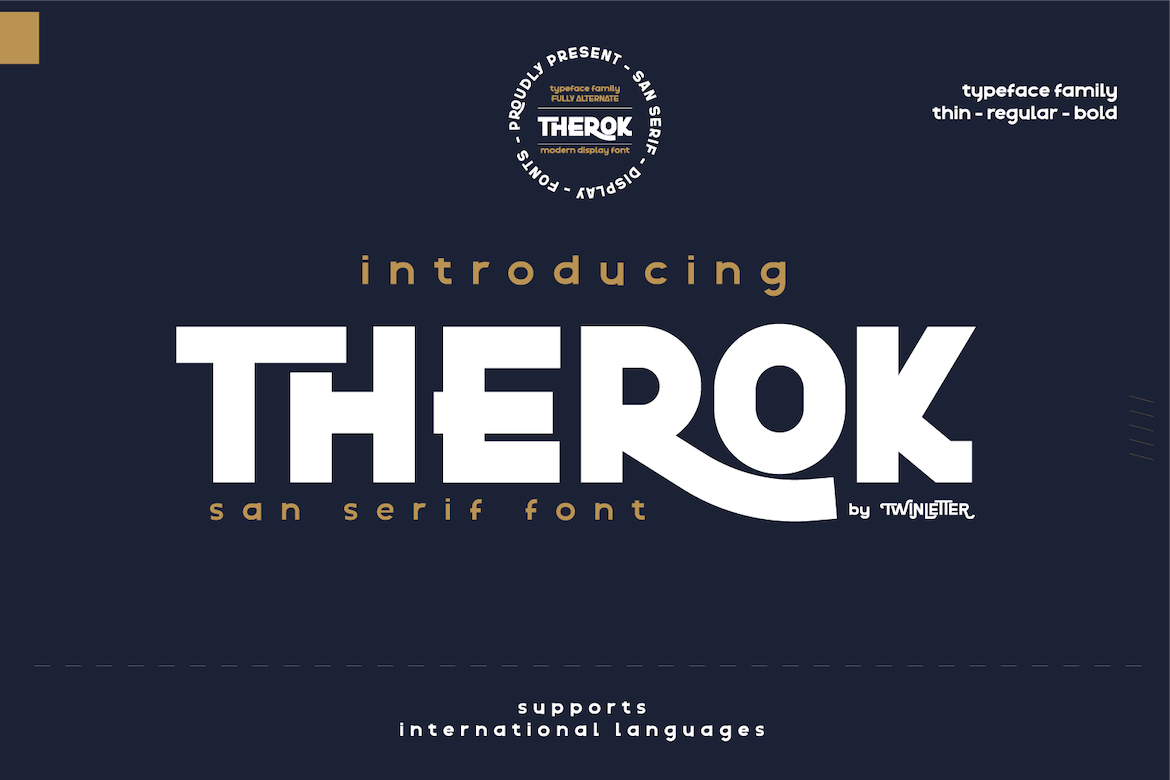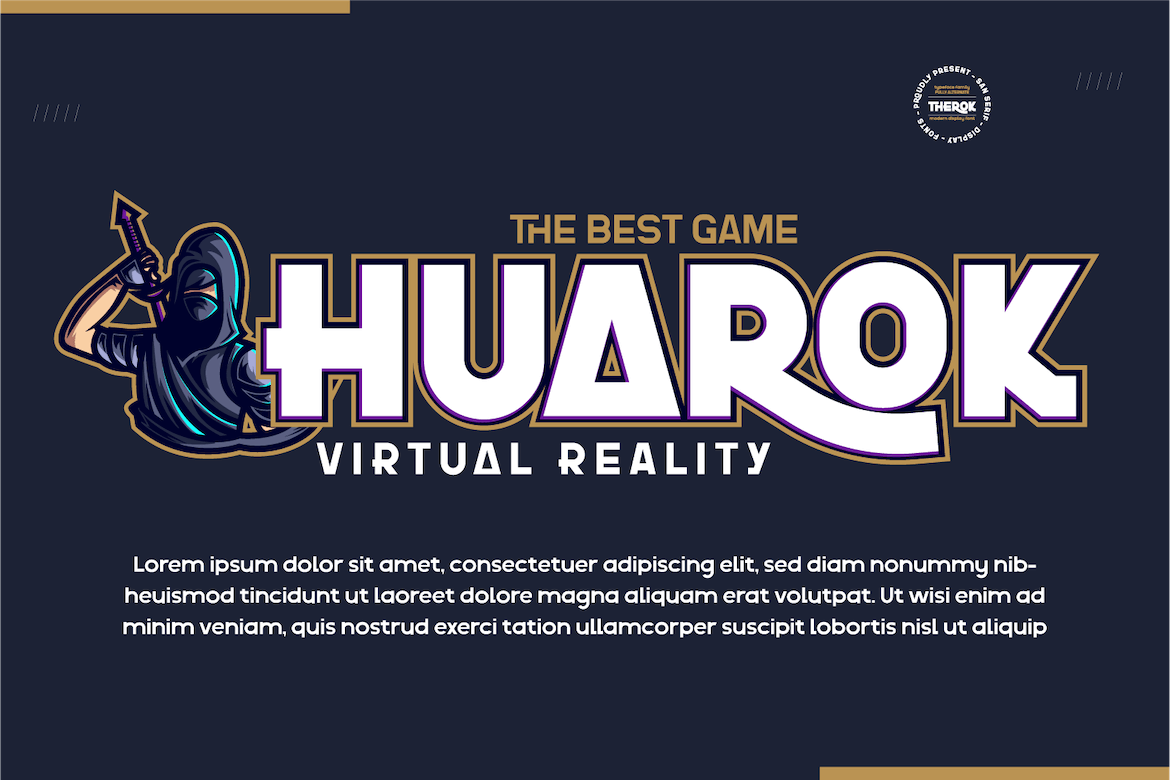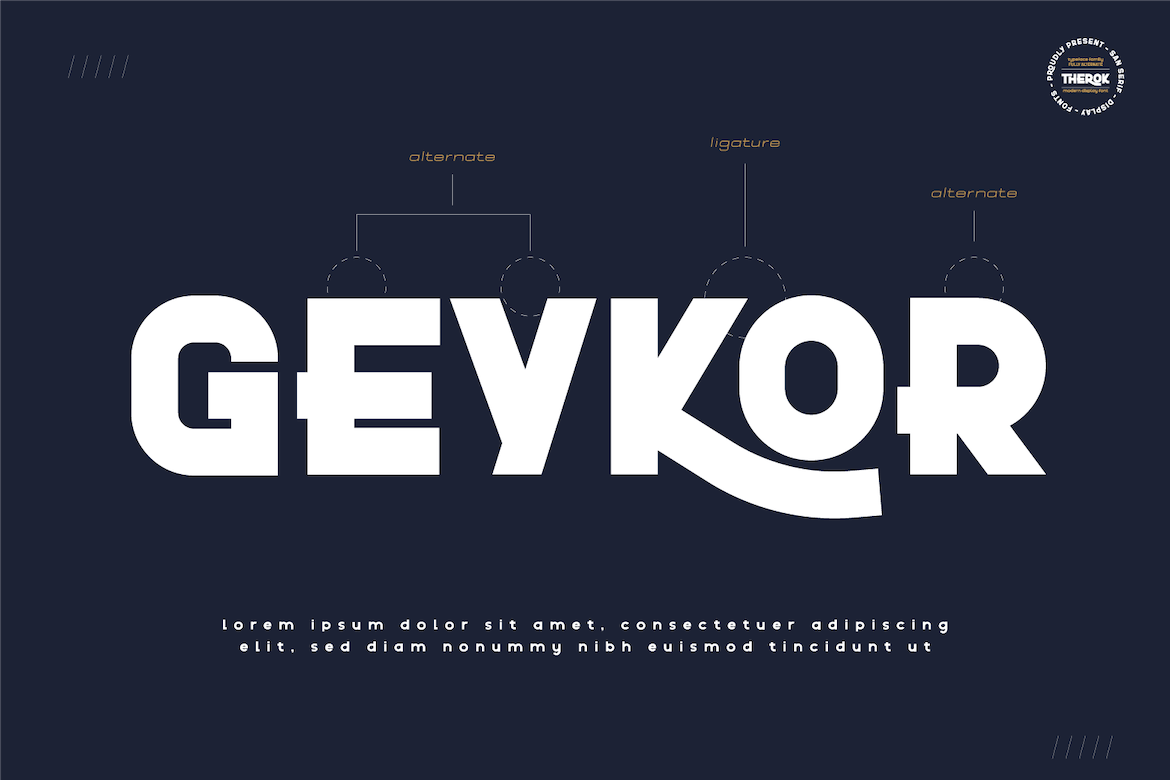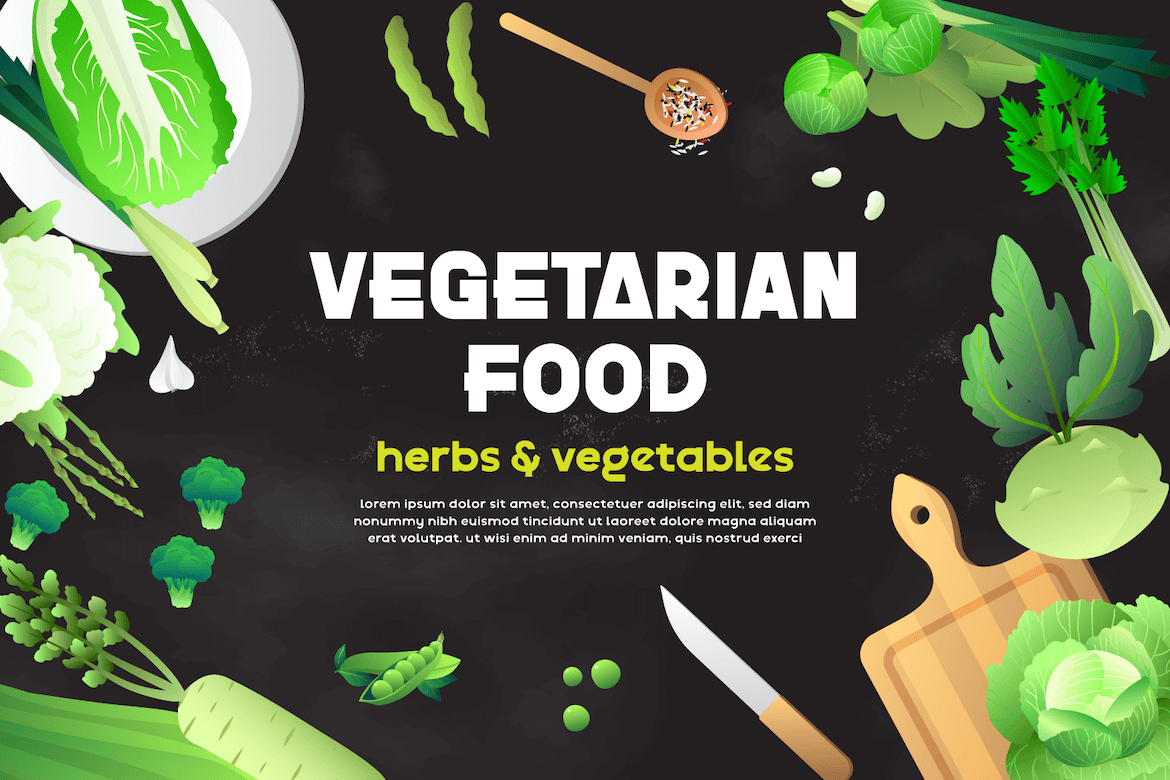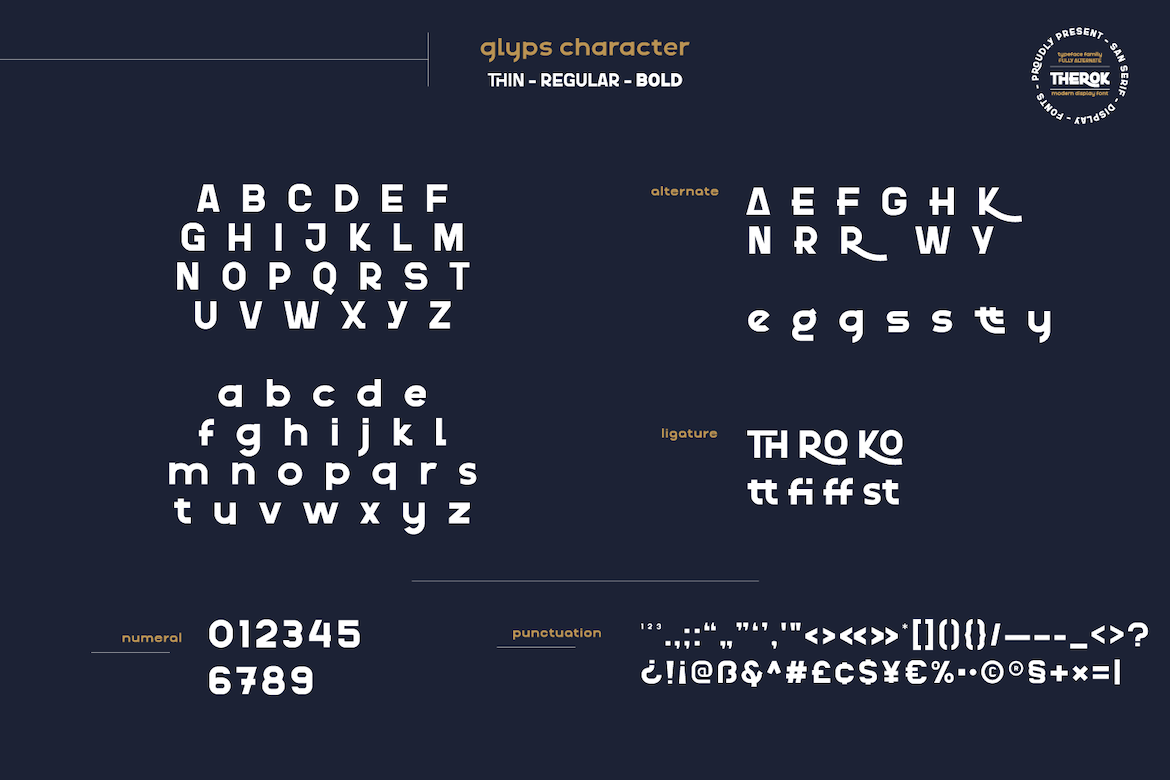
Therok
Introducing our newest font named Therok.
We design this san serif family font with attention to the combination of each letter to create an elegant impression and appearance so that it makes it easy for you to use it according to what you need, both formal and non-formal needs. This font is powerful for your very extraordinary project.
This font is perfect for games, sporting events, branding, banners, posters, movie titles, food and beverage, technology, quotes, clothing, logotypes, and more.
• Fonts include multilingual support for; Afrikaans, Albanian, Croatian, Czech, Danish, Dutch, English, Estonian, Finnish, French, German, Hungarian, Italian, Norwegian, Polish, Portuguese, Slovak, Slovenian, Spanish, Swedish